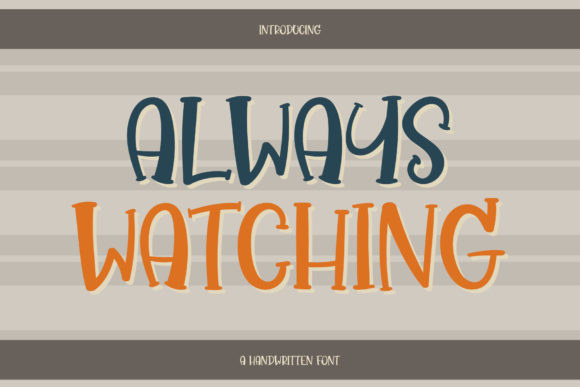
Gather around, font enthusiasts! Prepare to embark on a typographic expedition with our extraordinary Always Watching font, a masterpiece crafted by the ingenious Wanida Toffy.
Picture this: an enchanting serif font that exudes playful charm, its characters pirouette gracefully across the baseline. It's as if each letter carries a hidden melody, ready to orchestrate a symphony of visual delight.
Always Watching is not just another font; it's a whimsical companion for your creative escapades. Let it infuse your designs with a touch of whimsy, a dash of elegance, and a whole lot of personality. Unleash its potential in logos that demand attention, headlines that captivate, or body text that embraces effortless readability.
Its versatility knows no bounds, seamlessly adapting to any project you throw its way. From captivating posters that ignite imaginations to brochures that eloquently convey your message, Always Watching is the font that transforms the ordinary into the extraordinary.
But what truly sets Always Watching apart is its innate ability to effortlessly conquer large bodies of text. Its characters possess a remarkable clarity, ensuring effortless reading experiences that captivate from beginning to end. Dive into captivating novels, immerse yourself in academic treatises, or navigate complex reports - Always Watching will be your steadfast guide, leading you through oceans of words with unwavering legibility.
So, step into the captivating world of Always Watching today and witness the power of a font that dances with playfulness, embraces elegance, and conquers the complexities of text. Let its whimsical charm ignite your creativity and leave an unforgettable mark on your designs.